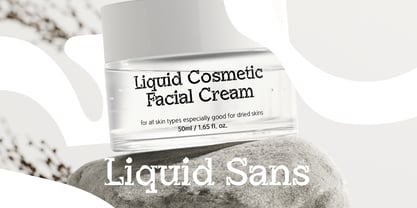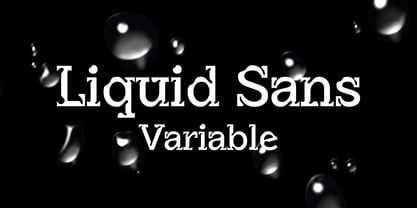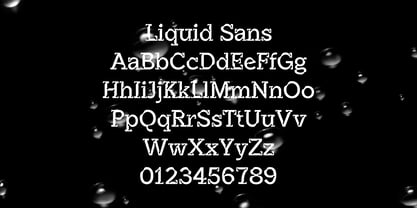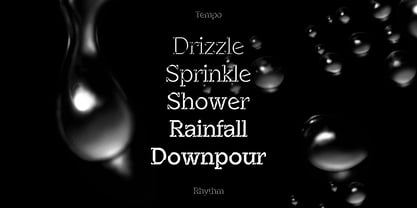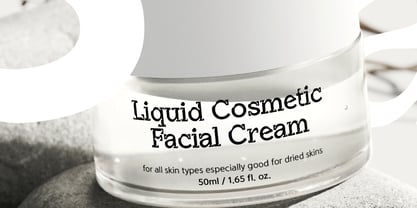
Yoon Liquid Sans Variable
The Yoon Liquid Sans Variable Font Family was designed by Yoon Design Team and published by Yoon Design. Yoon Liquid Sans Variable contains 1 styles. More about this family
Inspired by shimmering water reflections, Yoon Liquid Sans Variable expresses fluid movement across a flexible design space.